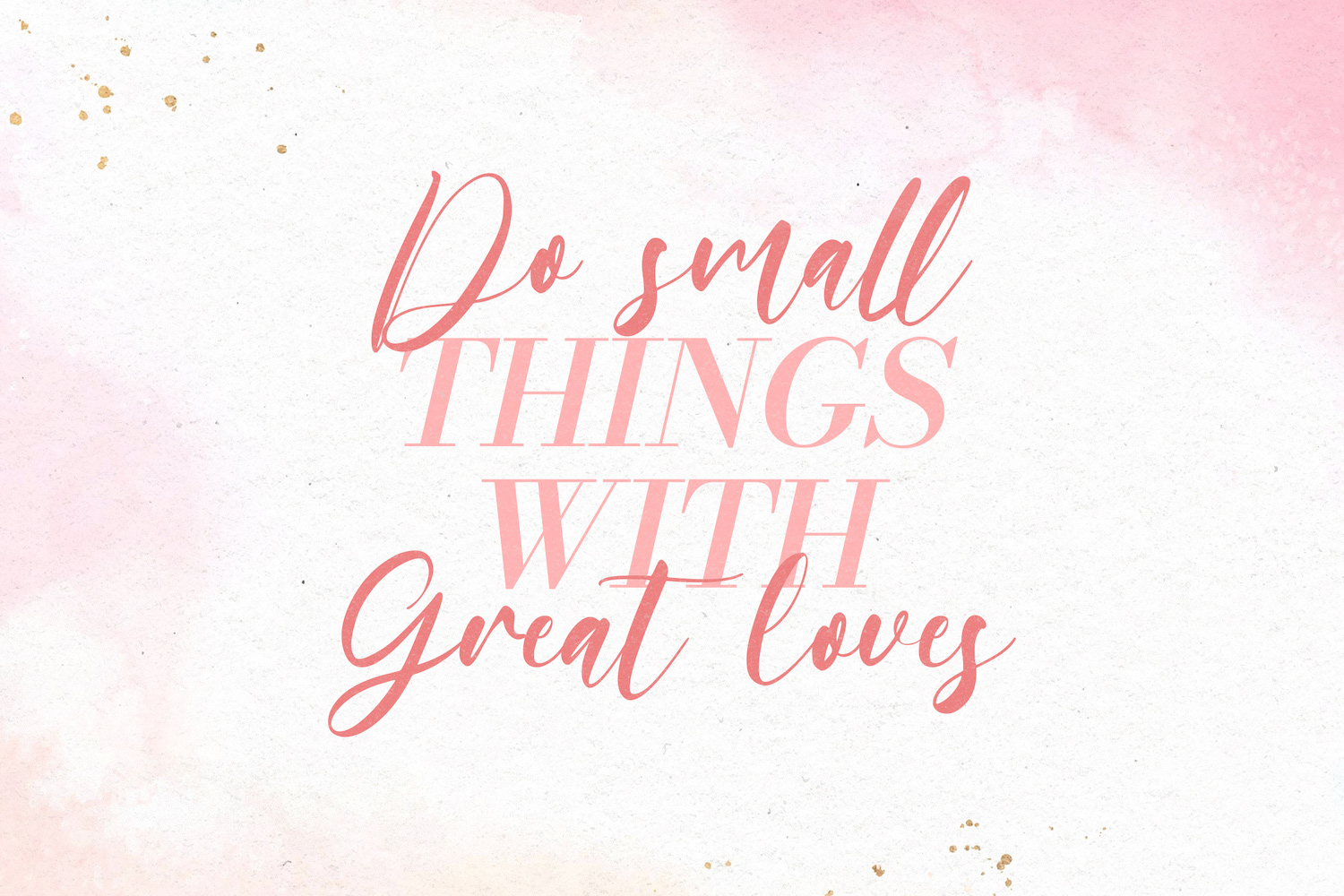
Fattemah is a modern handwritten script typeface by Stringlabs, designed to feel like a fresh, confident signature—softly romantic, clean, and effortlessly stylish from the very first glance.
Its brush-like contrast and smooth rhythm bring a sense of warmth and sincerity, with just enough flourish to feel special without becoming overly ornate. The overall mood leans feminine and elegant, with a contemporary “boutique” character—perfect for brands that want to appear graceful, personal, and premium. Fattemah shines in beauty and wellness identities, fashion labels, wedding projects, artisan packaging, café/bakery branding, social media quotes, and any headline where you want the words to feel human, heartfelt, and memorable.
This typeface is especially suited for creatives, small businesses, and personal projects that prioritize charm and emotional connection—ideal for logos, brand marks, invitations, and highlight typography (rather than long body text). License: Free for personal use (for commercial needs, please secure the appropriate license from the designer/foundry).